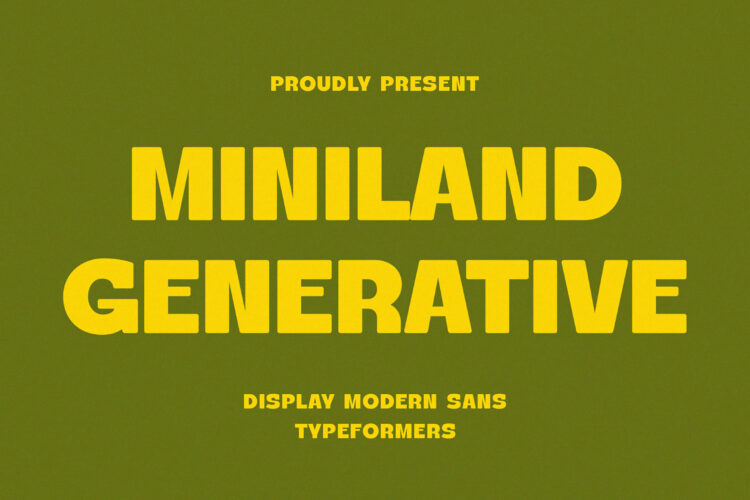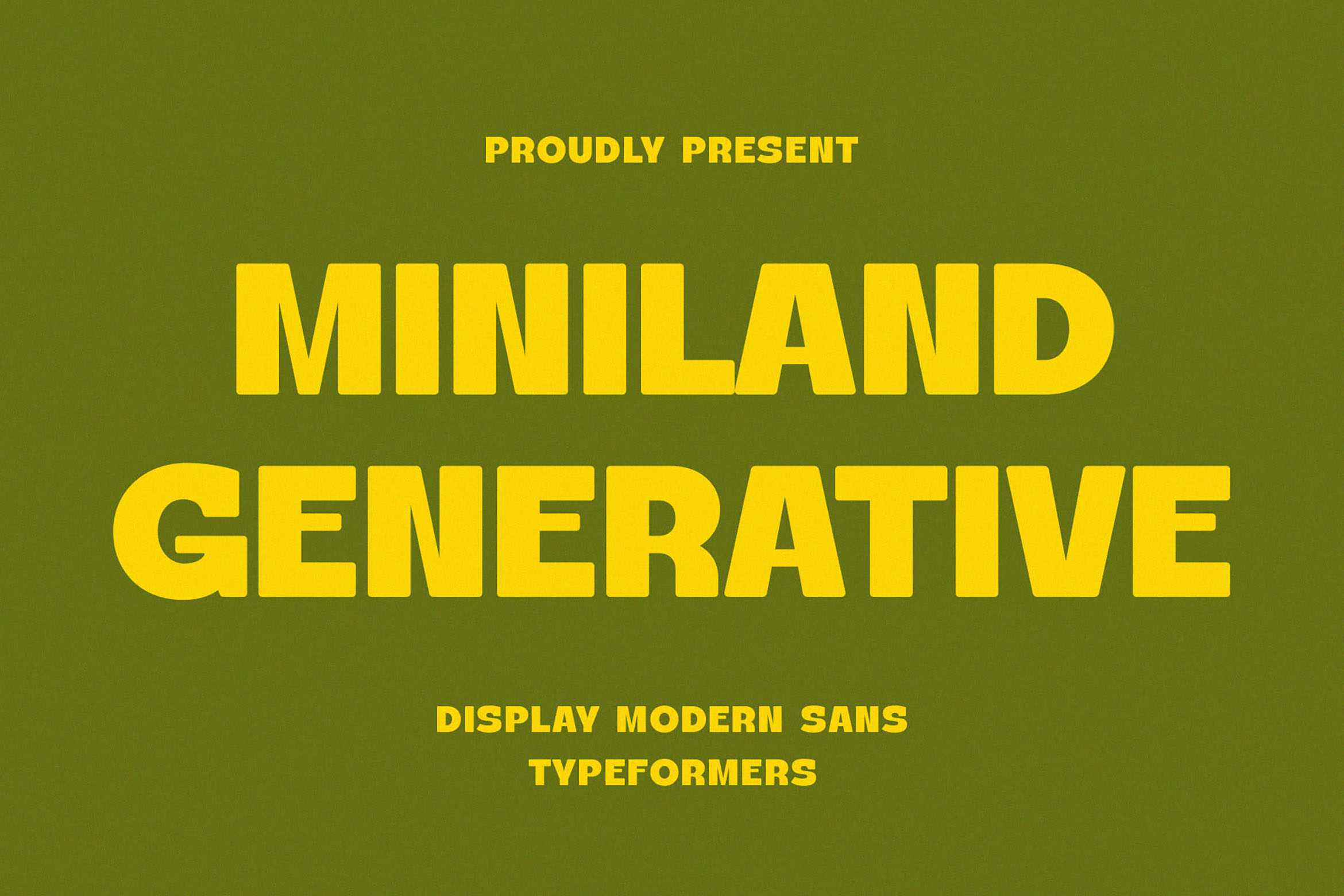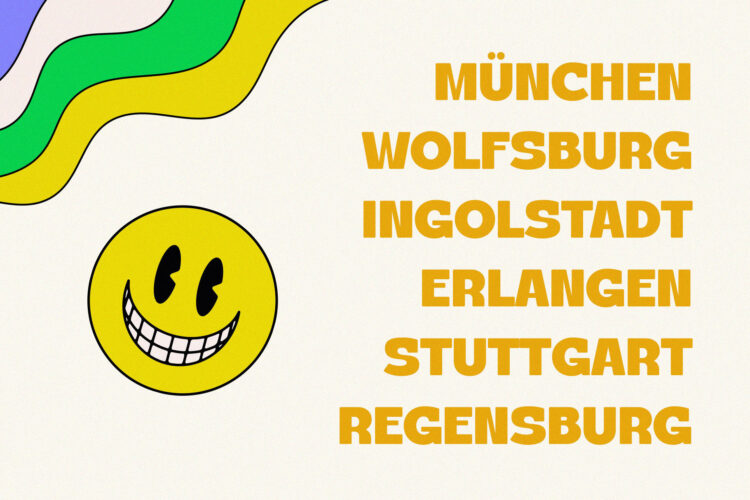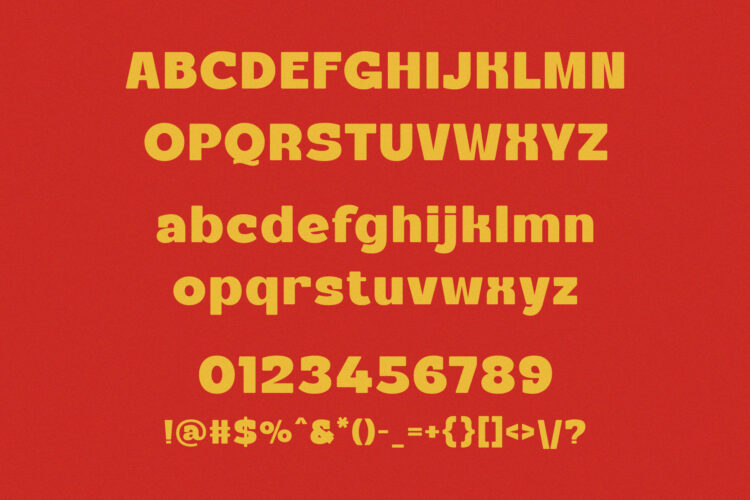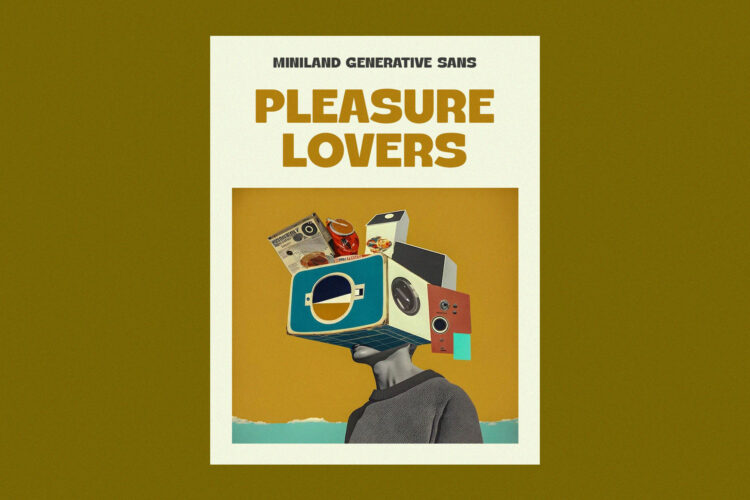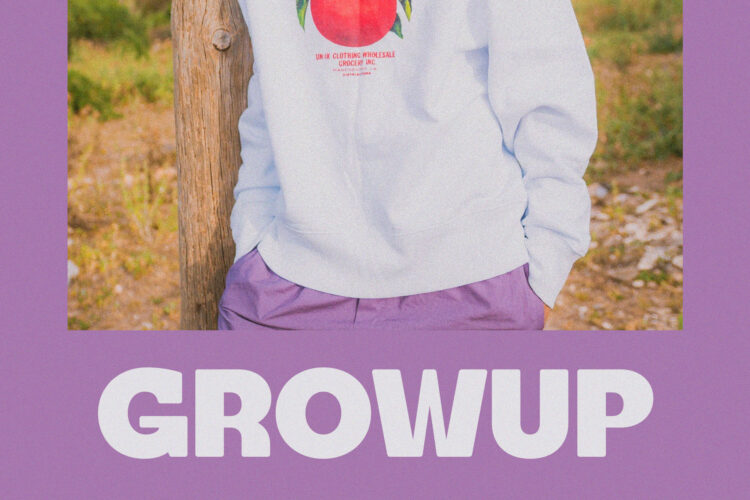
Introducing Miniland Generative – Display Modern Sans Serif.
Miniland Generative is a modern and simple font, best used as a display for headings, logos, branding, magazines, product packaging and invitations.